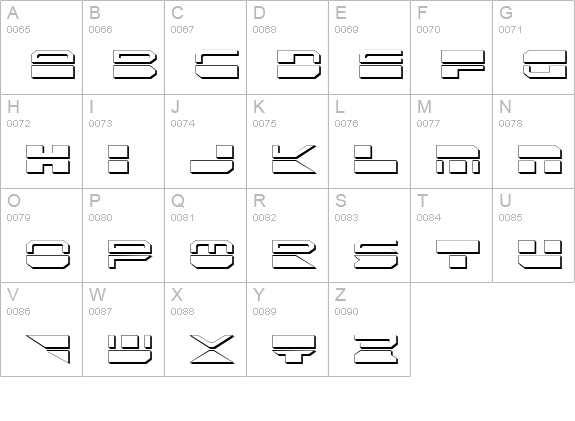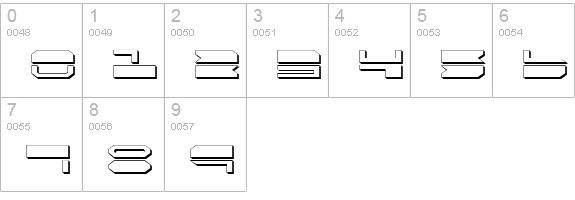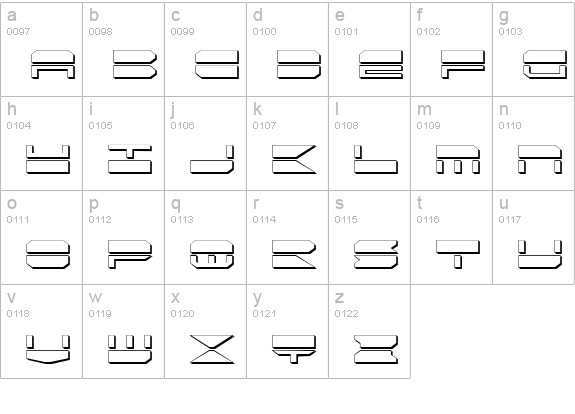
Introducing Quickmark Shadow font, a versatile and modern typeface that adds a touch of sophistication to any design project. This elegant font features a unique shadow effect that gives your text a three-dimensional look, making it stand out from the crowd. Perfect for branding, packaging, posters, and more, Quickmark Shadow font is sure to make a bold statement. Its clean lines and stylish appearance make it suitable for a wide range of design applications, from digital to print. The best part? Quickmark Shadow font is available for free download at FontsMarket.com. So why wait? Add this stunning font to your collection today and elevate your design projects to new heights.